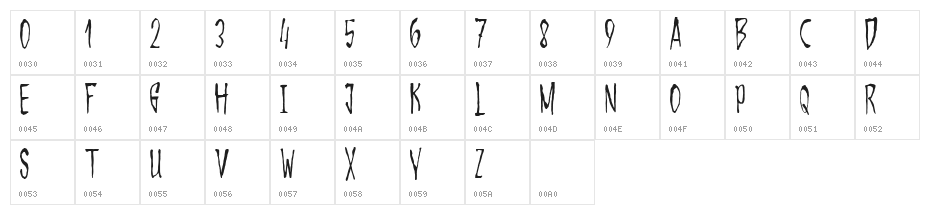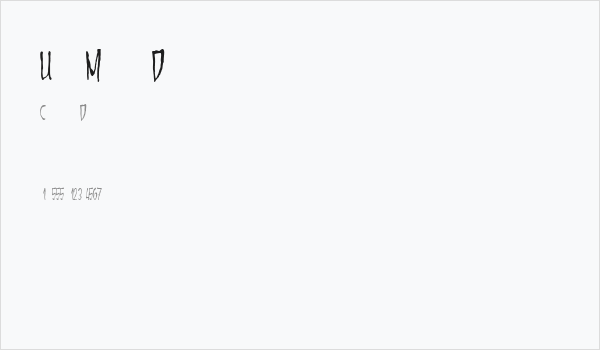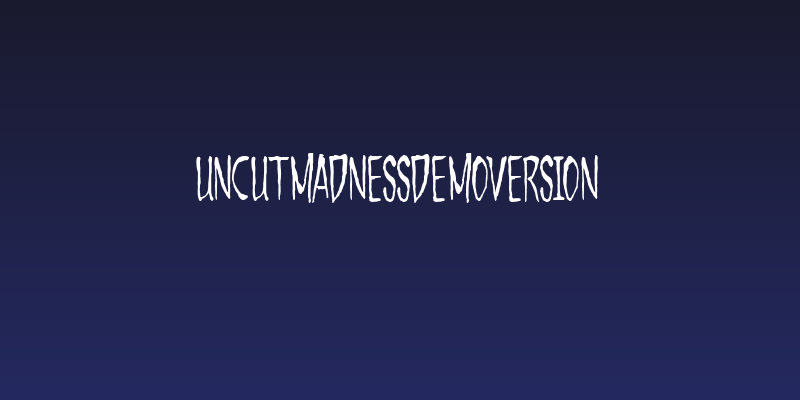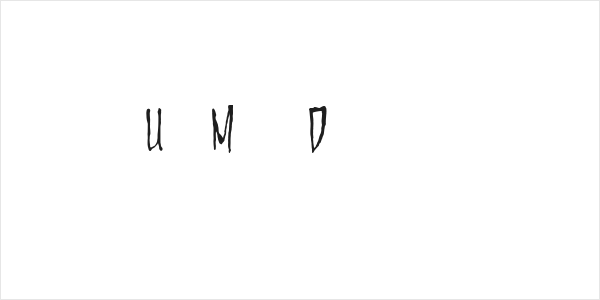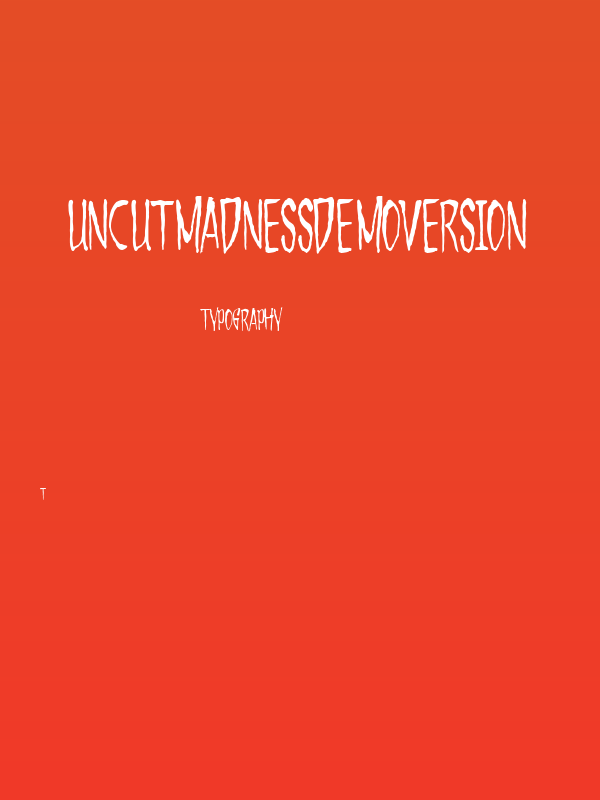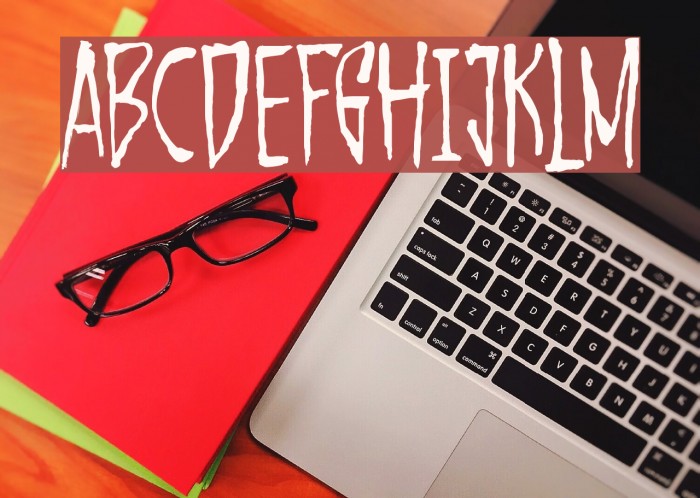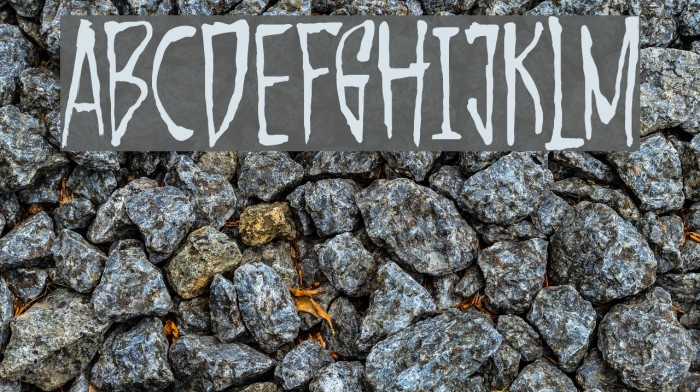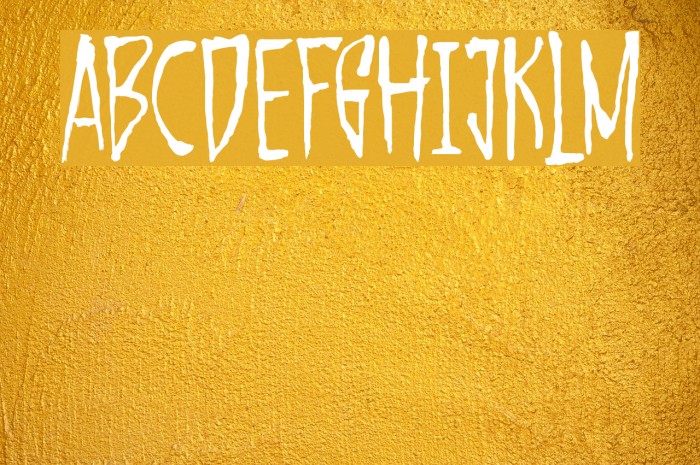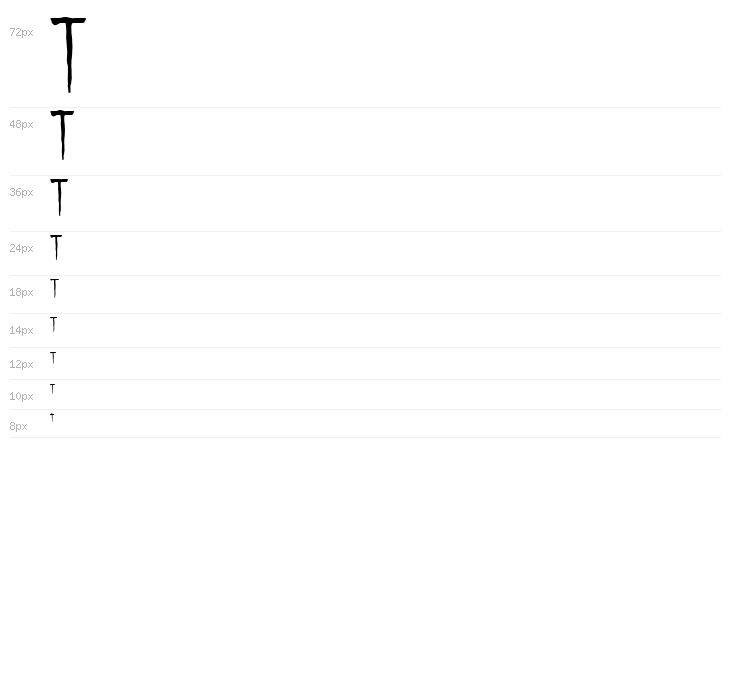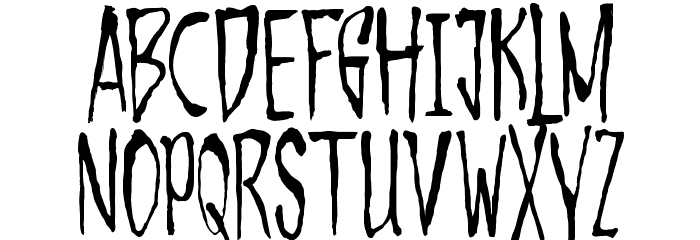
UncutMadnessDemoversion Font
UncutMadnessDemoversion Description
This font features a distinctive, edgy style with elongated, irregular strokes that give it a hand-drawn appearance. The characters are tall and narrow, with a slightly chaotic and distressed look, reminiscent of graffiti or urban art. The uppercase and lowercase letters maintain a consistent style, with sharp angles and uneven lines that add to the font's dynamic and energetic feel. The numbers follow the same aesthetic, ensuring a cohesive look across all characters. This font's unique design makes it stand out, perfect for projects that require a bold, unconventional typeface.
| Overall Style | Modern, Urban |
| Proposed Projects | Ideal for album covers, posters, street art designs, and edgy branding projects. |